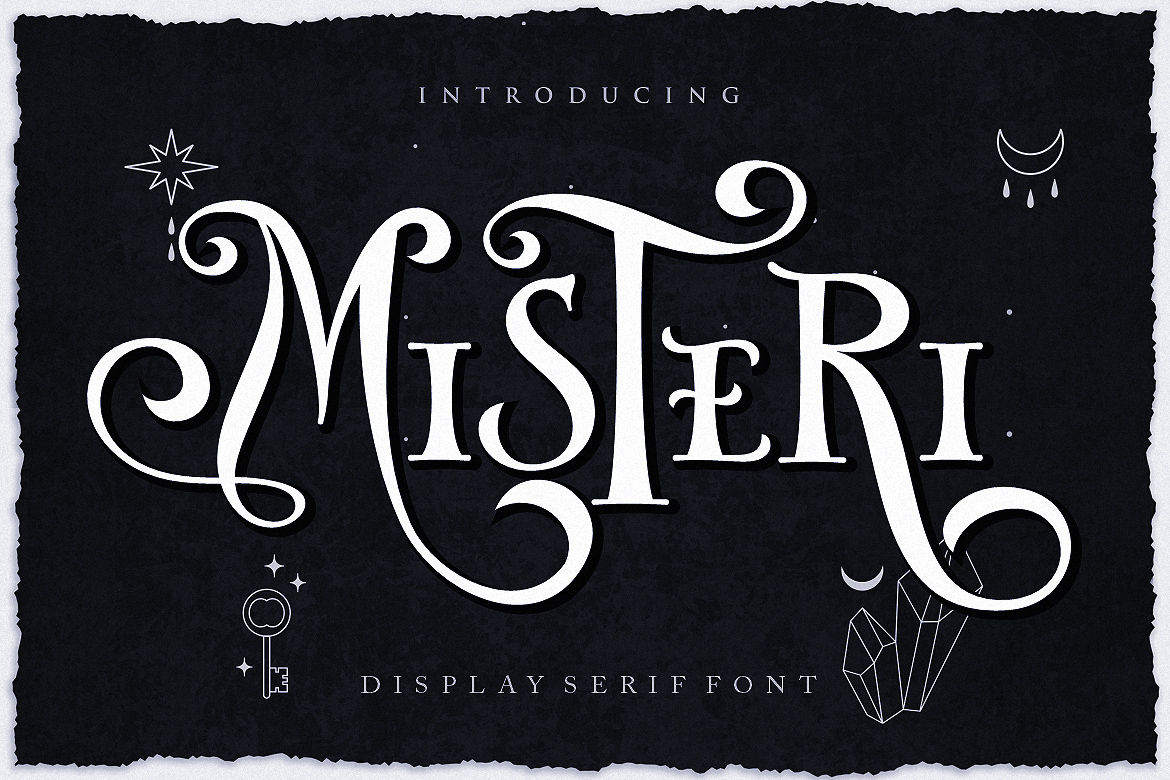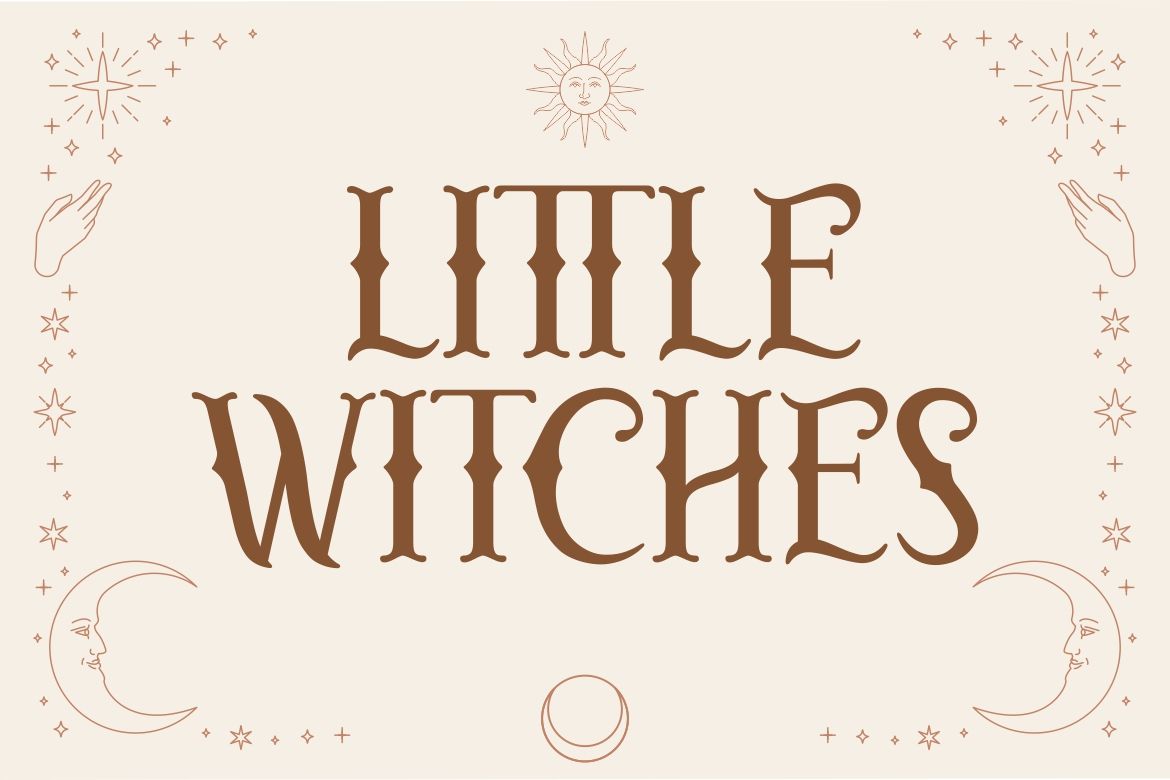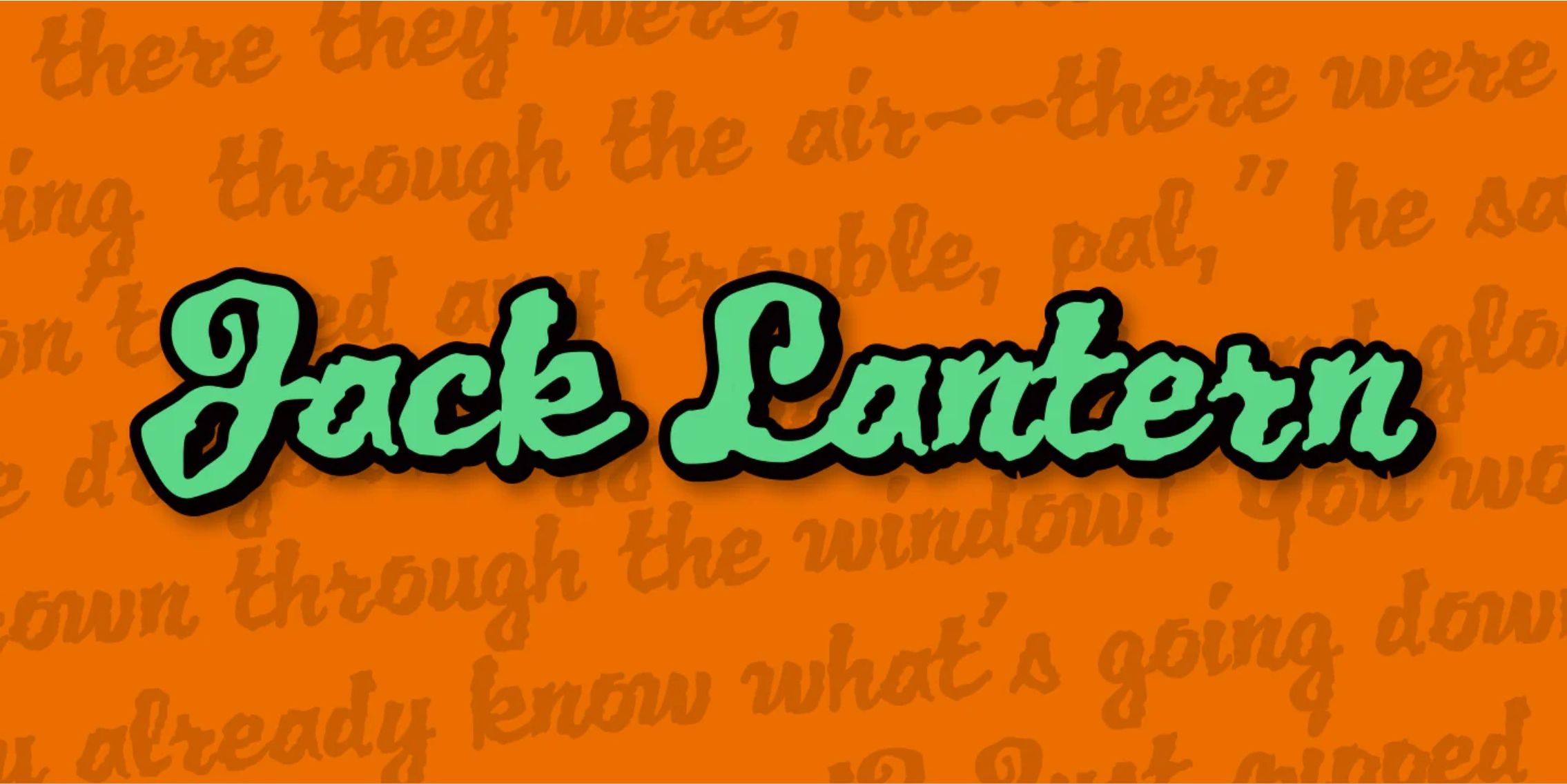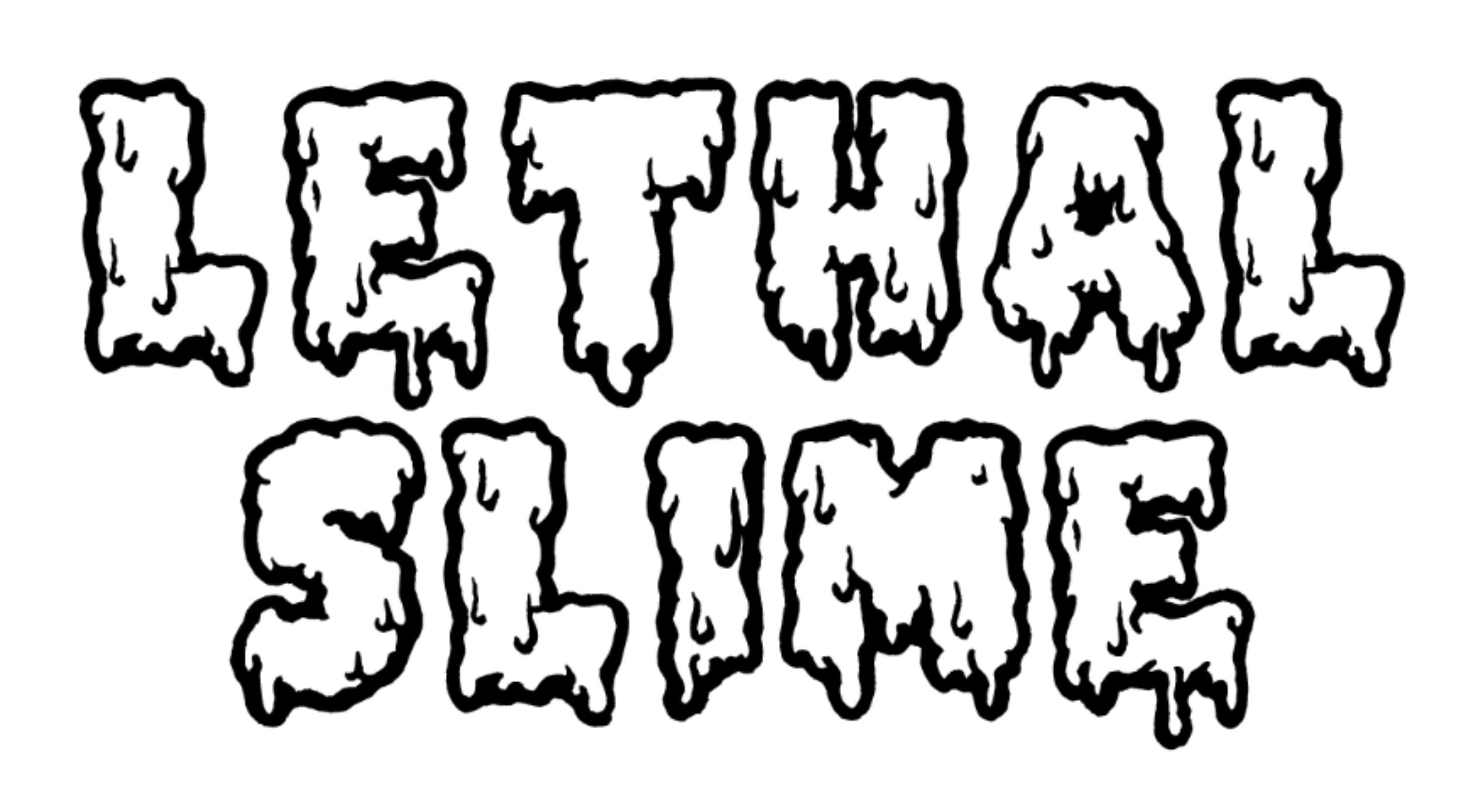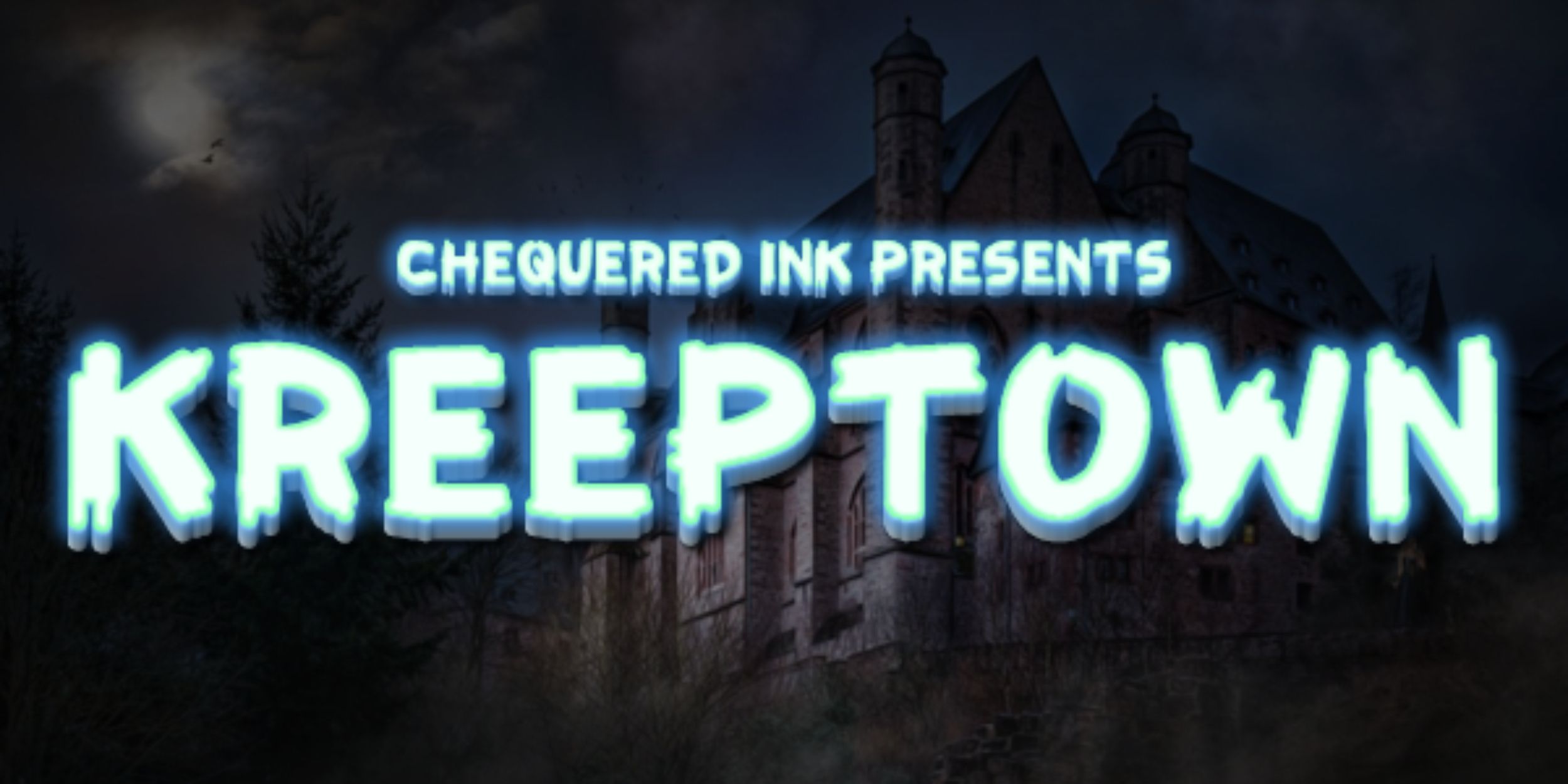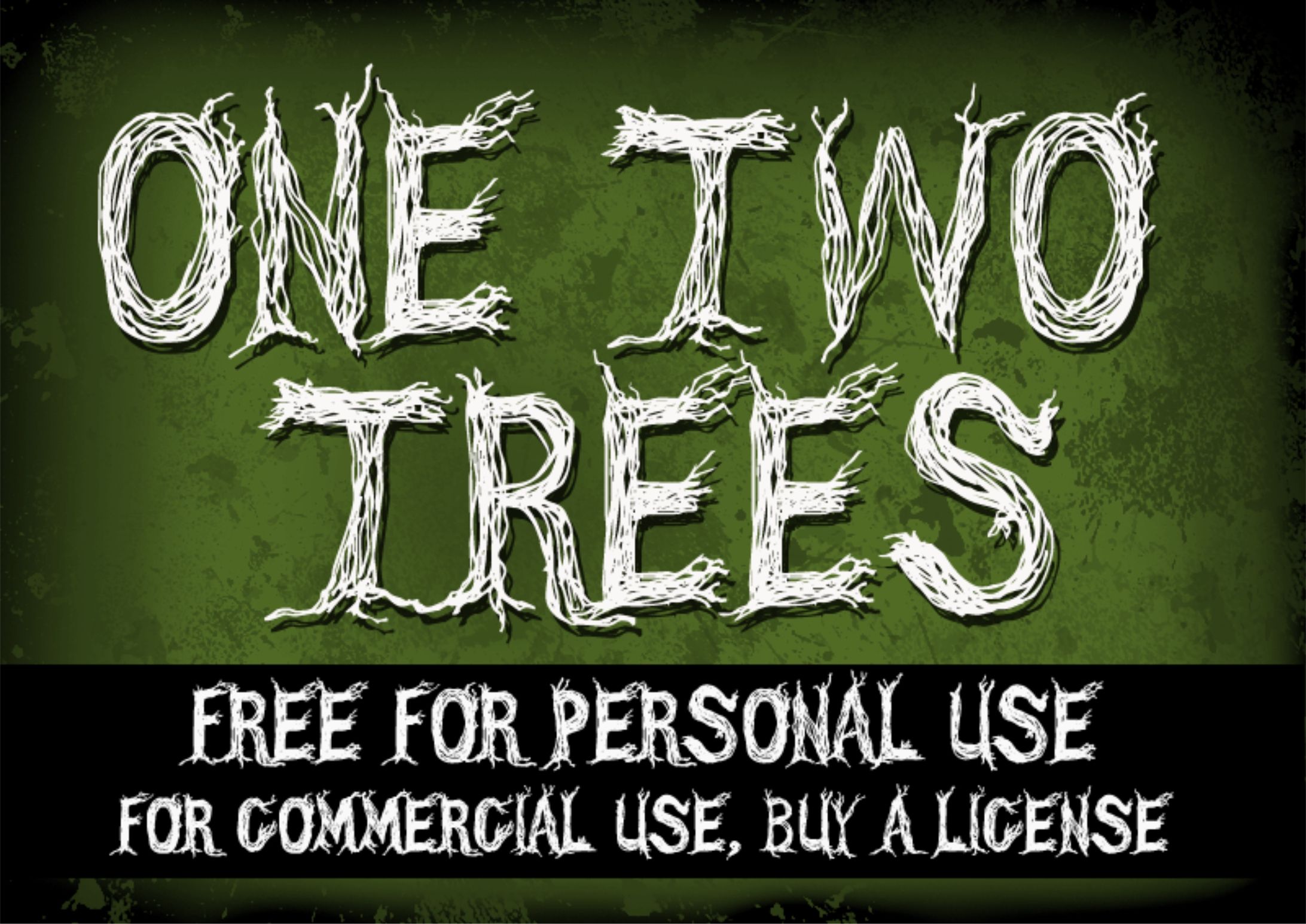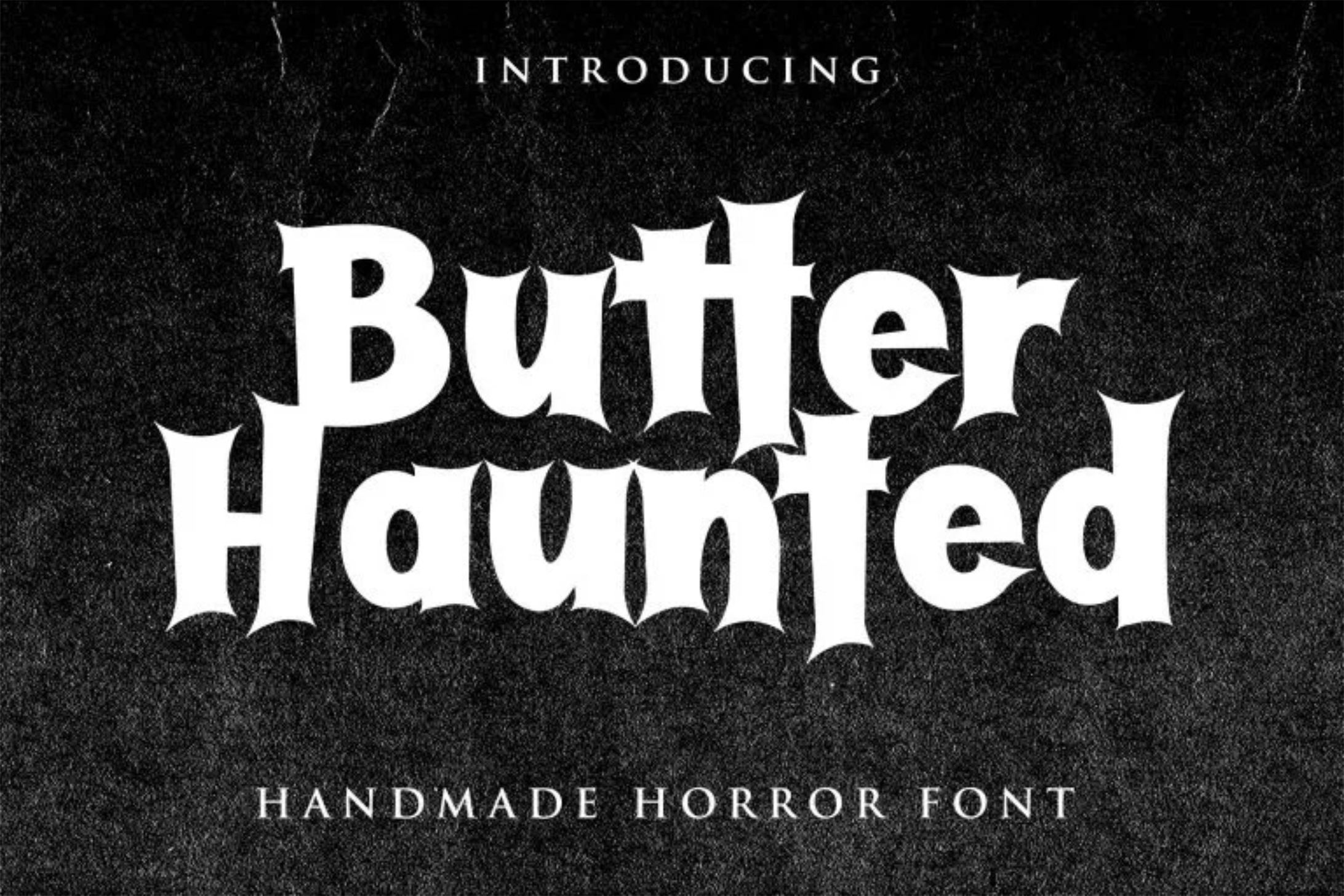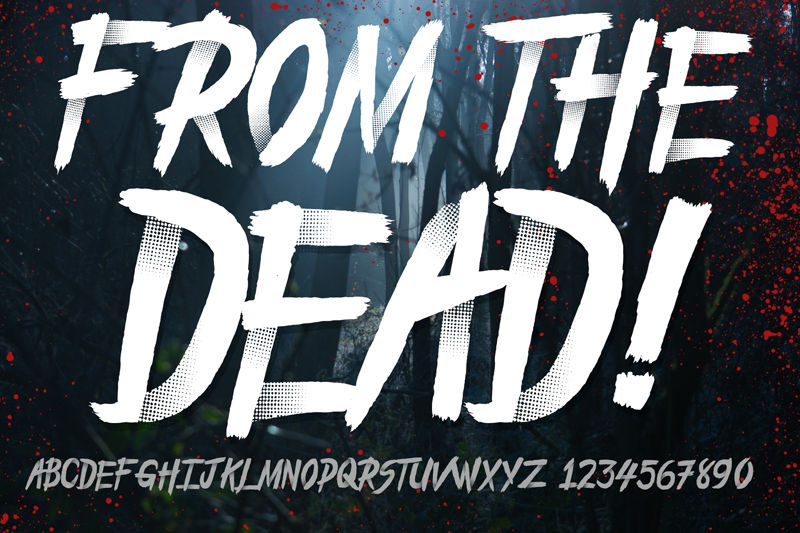
Top Spooky Fonts for Halloween-Themed Designs
Celebrating the Halloween festival with special content feels like a fun idea. But, first thing first, you need to find specific elements to drag your audiences into the spirit of Halloween and spooky fonts can be a perfect choice to set up the mood.
The visual immediately conveys the mysterious side and haunted mood of the festival. At the same time, it will catch audience attention with the emotional eerie and a sense of playfulness.
If you are really enthusiastic about this, let’s dive into this article that will give you top selection fonts to join the party!
Characteristics of Spooky Fonts
So, what exactly makes a font spooky or eerie? What kind of characteristics does it have? Let’s explore this following section first to find out the complete answers!
⦁ Fragmented Letterforms
Distorted letters with asymmetrical shapes can radiate decay and unsettling feelings. The imperfection speaks as if something is not right and may evoke a sense of creepiness to the audiences.
⦁ Gothic Styles
This font often has gothic influences with dominating black colors. Such vibes are common to find in contents featuring supernatural themes and ghost stories.
⦁ Sharp Edges
Not merely having fragmented letterforms, spooky fonts also come with sharp edges, such as spikes and scratches. These extra elements trigger dangers and fears of ghostly energy, adding a sense of dread related to Halloween events.
⦁ Dripping Effects
Horror contents using spooky letters usually characterized by dripping and staining effects. This gives the impression as if something is melting or bleeding, adding up the grotestoque imagery.
⦁ Distressed Textures
Spooky letters often appear old and worn out, suggesting something dreadful. It gives the impression that the font is haunted or just being attacked and scratched. This effect also conveys if the letters are not created by machine, signaling more frightening messages.
Top Spooky Fonts for Halloween Themed Designs
It may not be easy to choose the right font for Halloween themed designs. That’s why HansCo Studio comes with top picks of spooky typefaces that will be a perfect fit for your eerie designs. Check out the list now!
1. Misteri
Misteri indicates something mysterious, but also conveying fun and friendly vibes. This is a good choice if you want to create Halloween designs with an enchanting mood rather than dreadful.
2. Little Witches
Little Witches still has the same vibe as Misteri, but this one is way more mythical and magical. For those who think of Halloween as a festival beyond creepiness, this font is the perfect one to bring you into this imaginary side.
You can use them for projects that involve wizards, witches, and fairy tales themes. It must be good as well for theatrical events that feature fantasy with a hint of slight spookiness.
3. Crows
Crows blend gothic elegance using graceful calligraphy strokes. It will give your design more witchy vibes and touches, especially if combined with Victorian themes. When you want to keep your design spooky, but still look classy, there is no better choice than using Crows.
4. From the Dead
From the Dead features rough edges with cracked letterforms, suggesting resurrection and horror themed spooky fonts. This font also has jagged edges and rough strokes, frequently combined with gothic palettes like black, dark red, and grey.
5. Jack Lantern
The creation of Jack Lantern firstly inspired by the Halloween symbol or carved pumpkin. The design offers playful and mischievous spookiness, rather than fully frightening.
When audiences look into the letters, they will have instant recognition that this is the time for Halloween. If you pair them with glowing effects, bat icons, and ghost illustration, it surely enhances the spooky vibes.
6. Lethal Slime
Lethal Slime is one of spooky fonts that combines melting and dripping effects. The vibes indicate that something dangerous is coming. It is often paired with horror themed colors, including black, dark grey, and sometimes bright neon.
7. Kreeptown
The jagged letterforms of Kreeptown radiating a spooky handwriting that can add creepy energy to the design. It’s playfully dark, perfect for a classic Halloween themed event.
However, the font is still aesthetically fun, so it will appeal to a wide range of target audience who like celebrating Halloween in an eccentric way.
8. One Two Trees